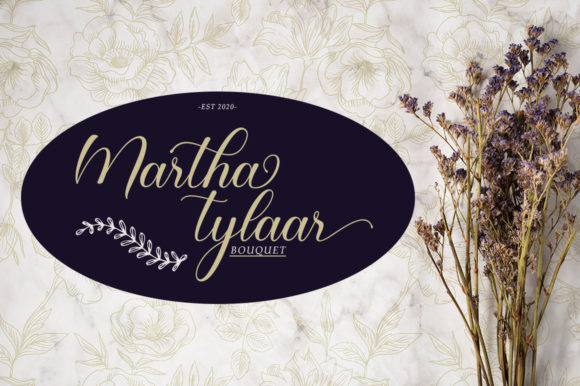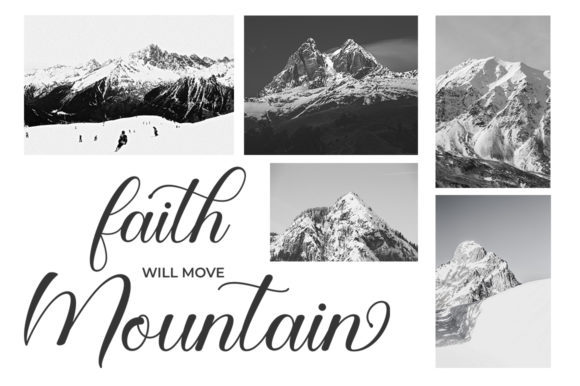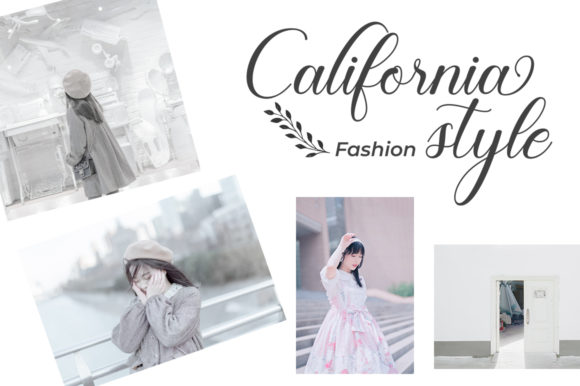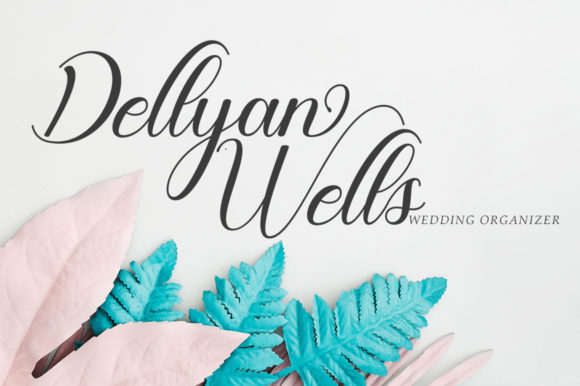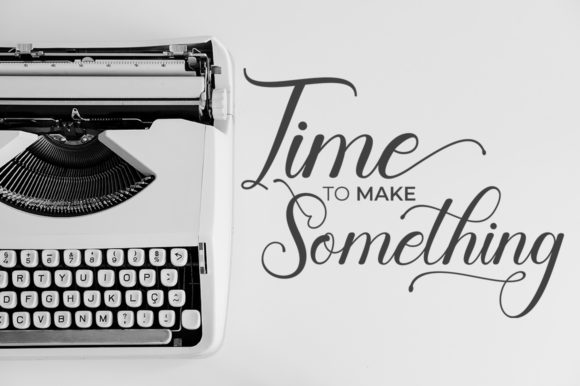
Discover the Timeless Charm of Handwritten Typography
Have you ever been browsing through an old family album or antique store, and the beauty of classic typography just takes your breath away? You can almost hear the whispers of the past, and the elegance of those vintage fonts leaves you wanting more. That’s exactly what inspired the creation of the Dellyna Nathan Font, a beautiful handwritten font that brings a touch of authenticity to any design project.
Whether you’re a seasoned designer or just starting out, the Dellyna Nathan Font is a valuable addition to your toolkit. Its unique style and classic feel make it perfect for creating gorgeous wedding invitations, beautiful stationery art, eye-catching social media posts, and cute greeting cards. With this font, you’ll be able to add a personal touch to your designs and make them truly special.
Dellyna Nathan Font Key Features
- Font Family: Dellyna Nathan Font is a unique, custom-designed font family.
- Font Size: The font family is designed to be scalable and suitable for various font sizes, from 8pt to 72pt.
- Resolution: Optimized for print and digital use at resolutions up to 300 DPI (dots per inch).
- Unique Characteristics: Dellyna Nathan Font features a distinctive, hand-drawn design with intricate details and subtle texture, making it ideal for use in creative and artistic projects.
- Font Style: The font family includes multiple styles, including regular, italic, bold, and bold italic, providing flexibility for various design applications.
Dellyna Nathan Font Review
Overall, I found the Dellyna Nathan Font to be a unique and intriguing choice. Here are some of its standout features:
- ✨ Beautiful, handwritten feel: The Dellyna Nathan Font has a lovely, personal touch that makes it perfect for creative projects.
- ✨ Versatile: This font works well in a variety of contexts, from invitations and greeting cards to digital media and print materials.
- ✨ Friendly and approachable: The font’s warm, inviting feel makes it an excellent choice for projects that require a friendly tone.
- ⚠️ Limited font sizes: While the font looks great at larger sizes, it can become distorted at smaller sizes, which may affect readability.
- ⚠️ Not suitable for formal documents: The Dellyna Nathan Font’s casual feel may not be suitable for formal documents, such as resumes or business reports.
Overall, I think the Dellyna Nathan Font is a great choice for projects that require a friendly, creative tone. While it may have some limitations, its unique feel and versatility make it a standout option in the world of fonts.
Getting the Most Out of Dellyna Nathan Font
For best results, use Dellyna Nathan font in combination with bold or italic styles to add emphasis. Avoid using it for large blocks of text, as it can be overwhelming.
Dellyna Nathan font is ideal for use in headings, titles, and logos. It adds a touch of elegance and sophistication to any design. Use it for invitations, wedding stationery, or any other project that requires a high-end look.